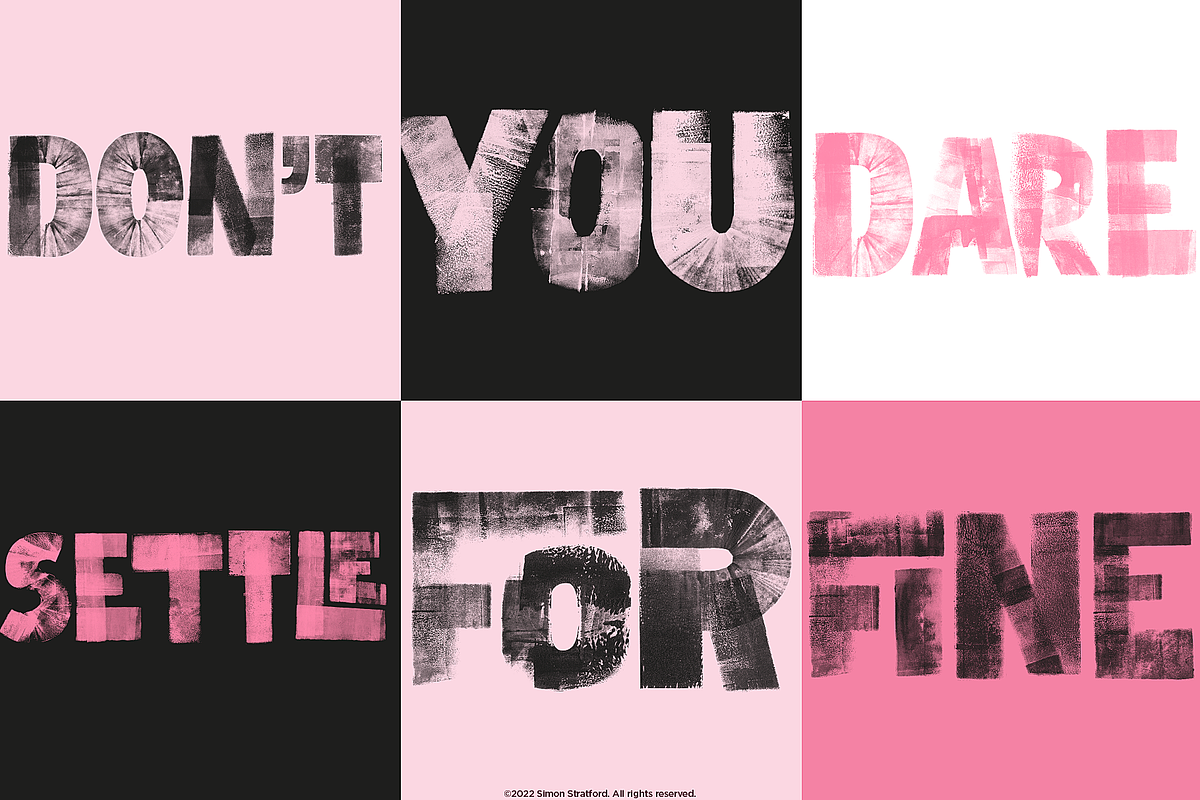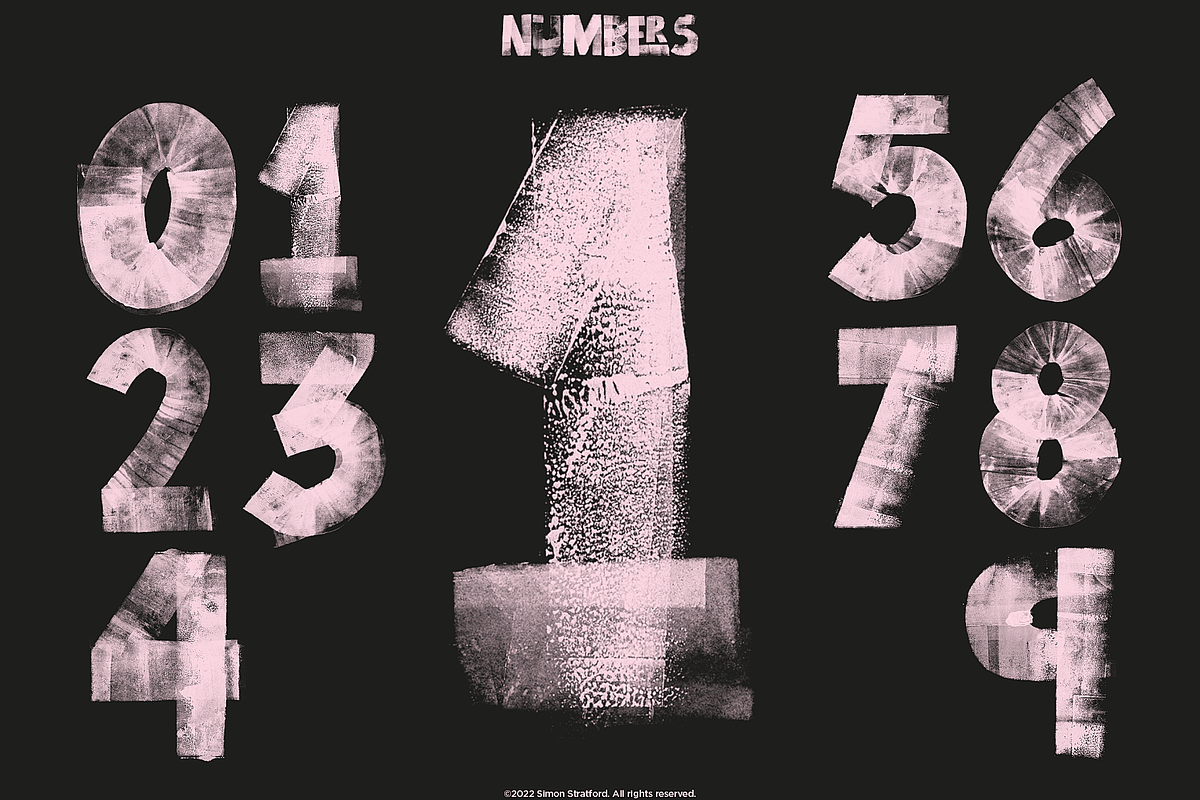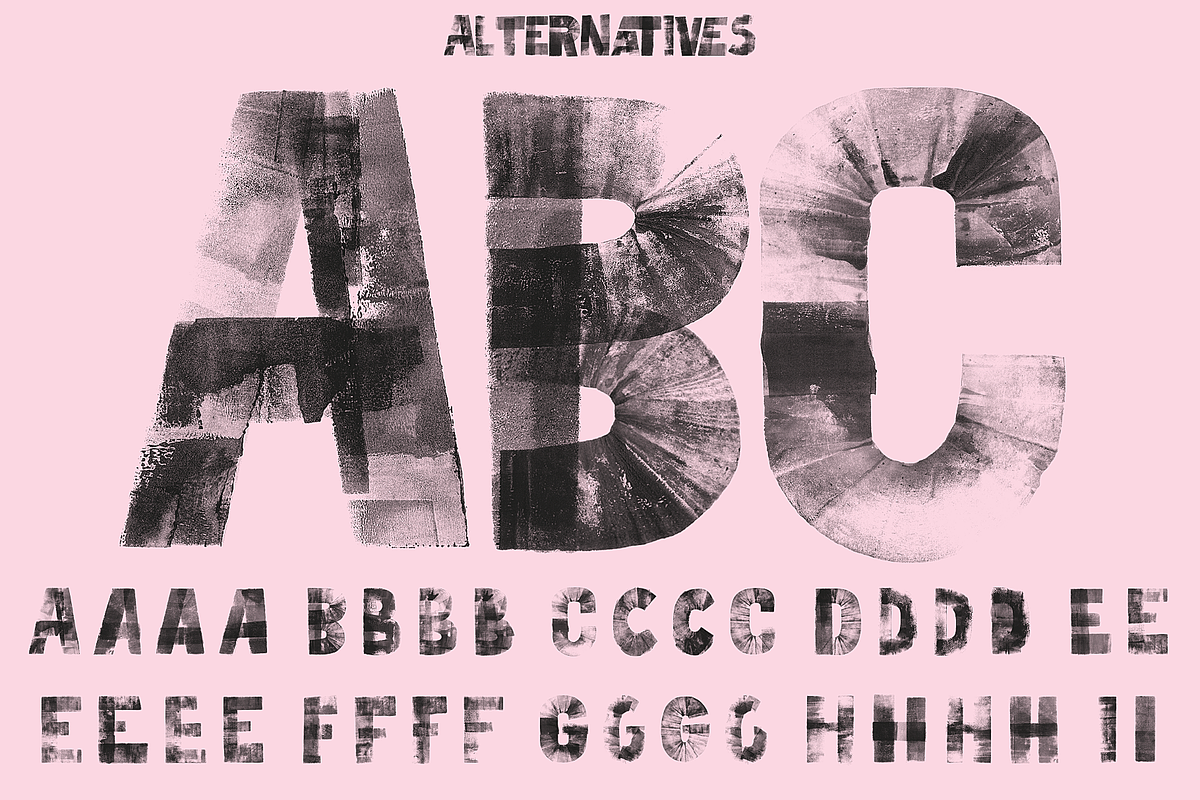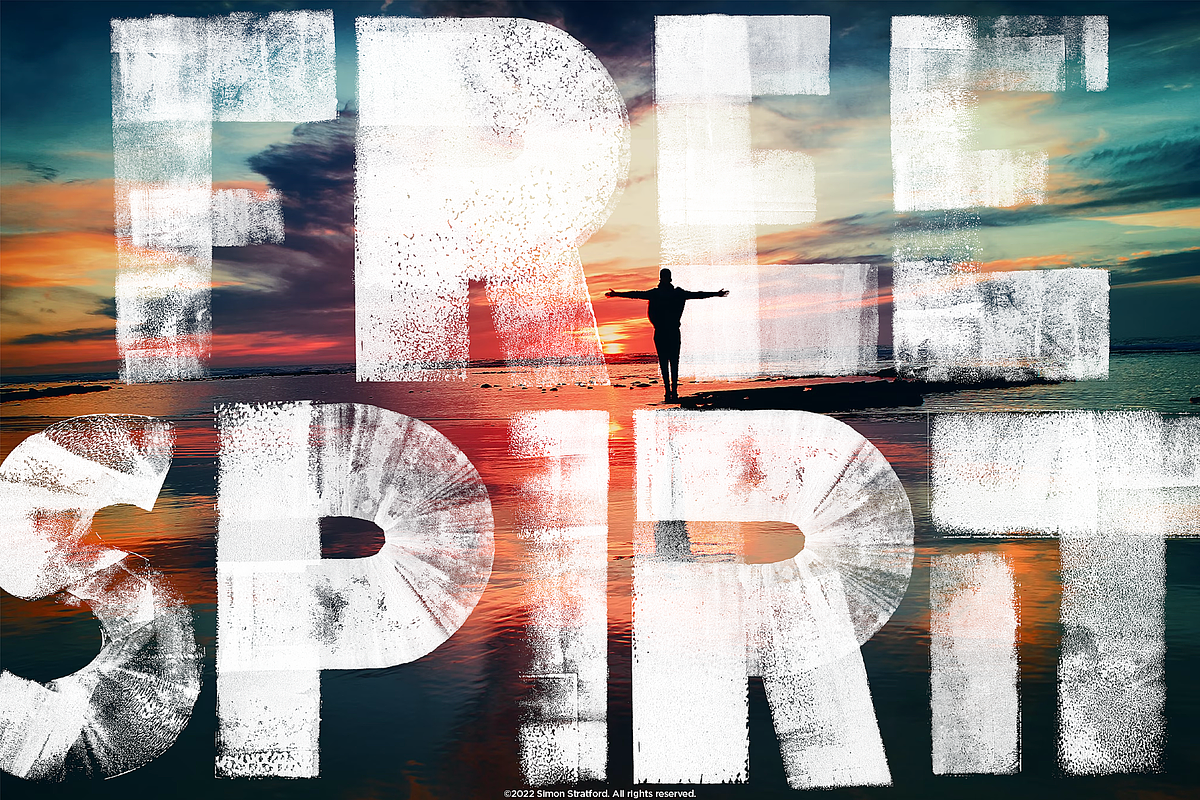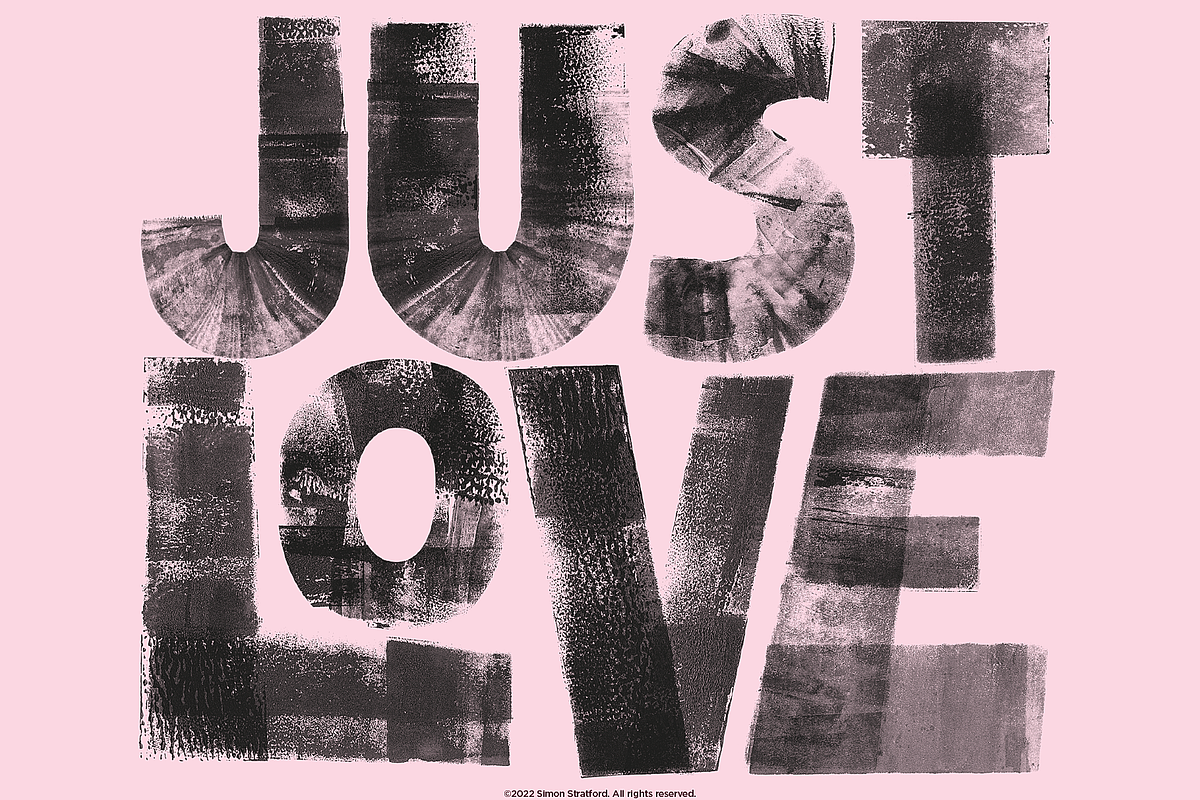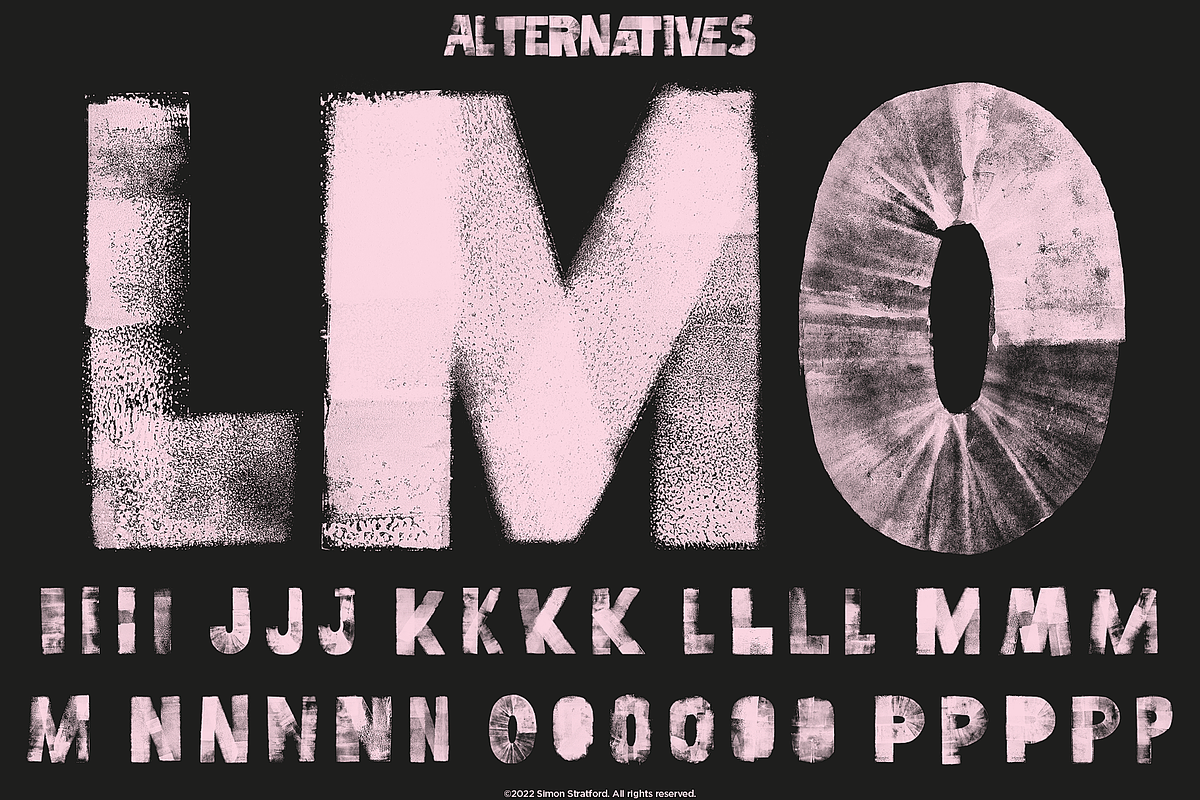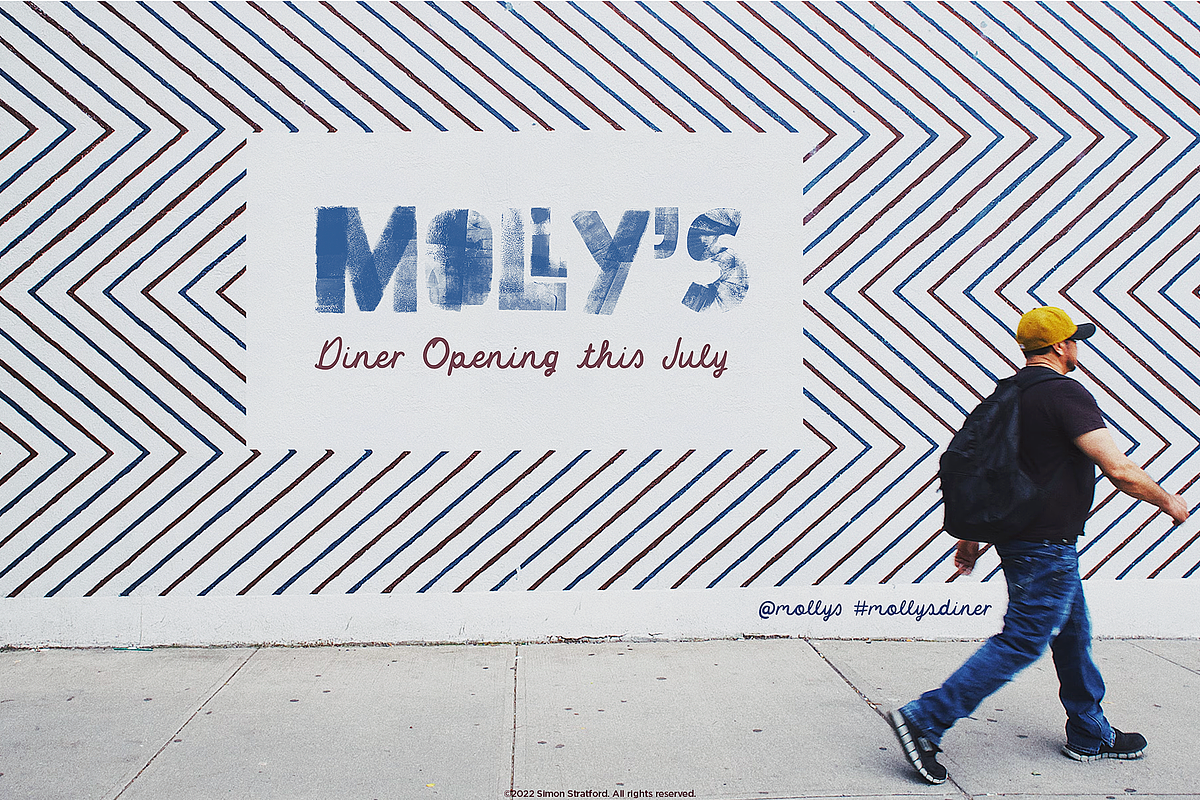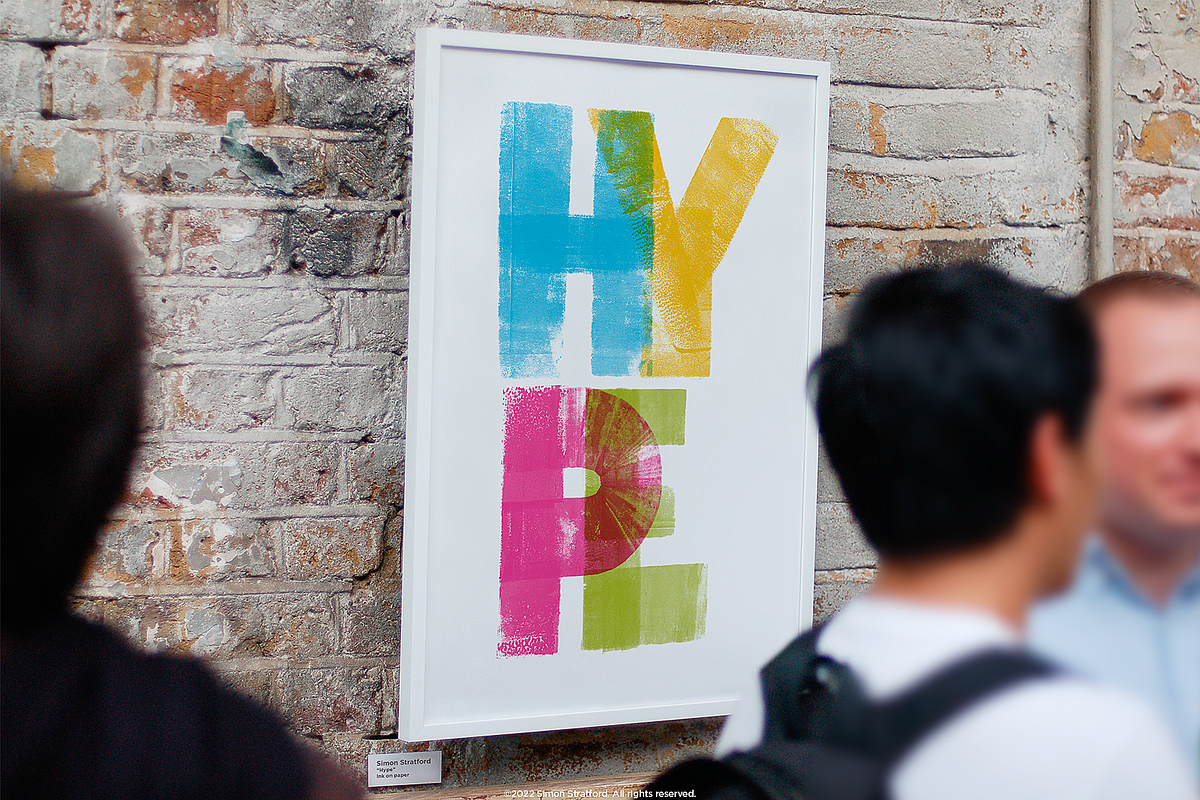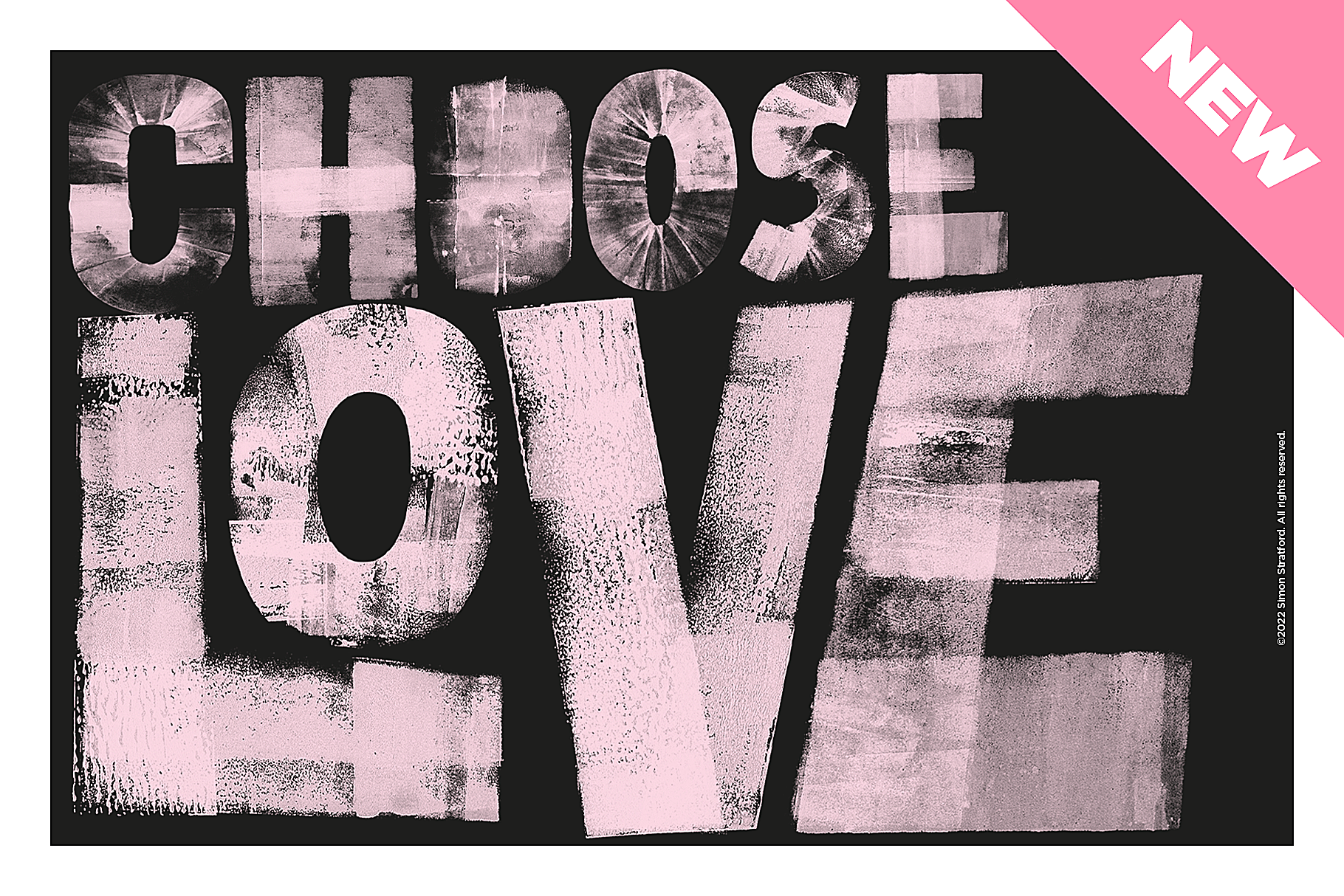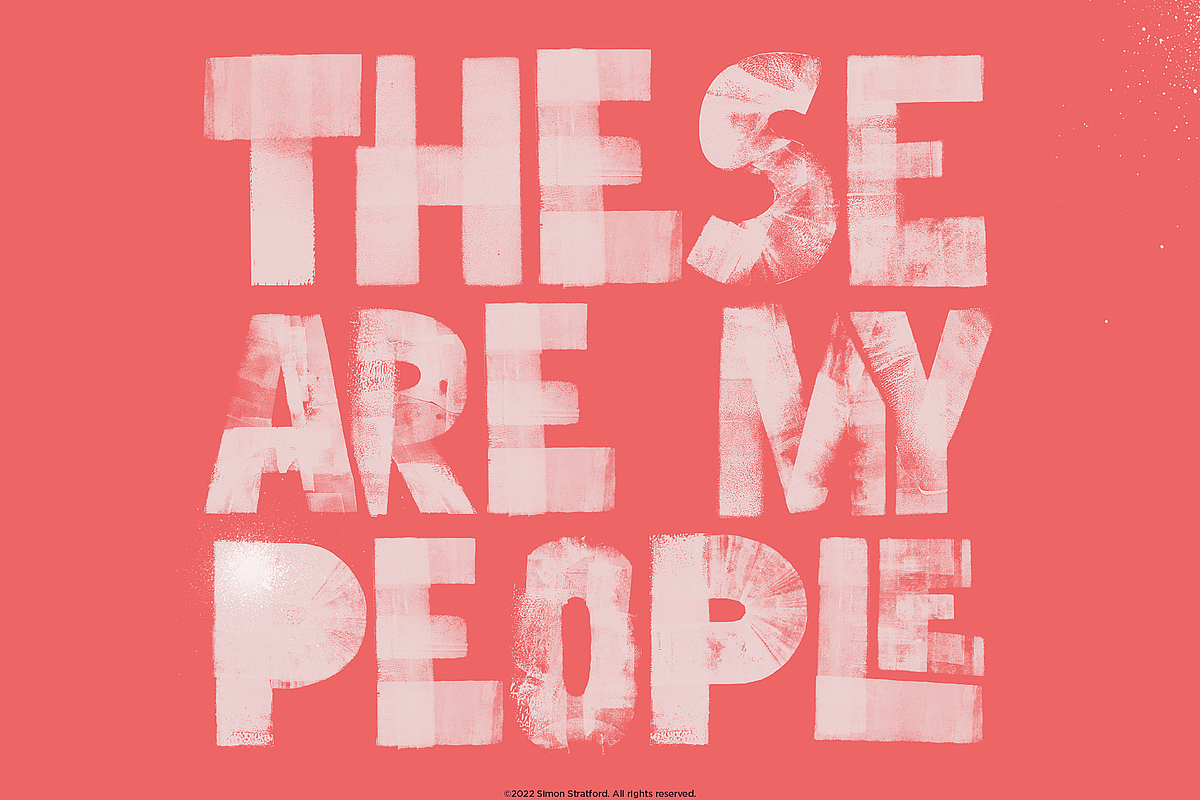
Display font Choose Love sans serif
Choose Love typeface by Simon Stratford. A hand-printed letterpress inspired, dirty ink display font packed full of awesome print details.
The font was created with cardboard cutouts and an ink brayer and then printed on paper, so it’s all handmade.
The details from the lettering print marks are quite staggering. You'll be hard pushed to find a better hand-printed typeface like it.
It's bold. It's far from perfect. It's full of imperfections and dirty marks—just the way I like it.
Choose Love font has three versions
If this font were a band, it would be more The Ramones than R.E.M.
Choose Love font—Alternative Glyphs
Choose Love has multiple alternative letters and ligatures—producing unique type designs. Combine them, and you can make wonderful type lockups that look like you have printed them yourself.
Each A to Z letterform has at least three alternatives —The impact of those extra glyphs? First, you can switch out repeating letters to make your design look more random, less repetitious and less like a font—marvellous.
Choose Love font—Ligatures
Choose Love also has ligatures. The ligatures are in their own typeface. You can turn them on via the glyphs panel in Adobe apps or select them via the glyphs panel. The ligatures feature many popular two-letter combinations that make your designs look even more impressive.
Uppercase glyphs only (This font is unicase)
Choose Love uses the new OpenType-SVG Bitmap font format. A traditional vector font has one colour and no transparency. Choose Love has complete transparency and thousands of shades of black and grey. In addition, the OpenType-SVG Bitmaps technology gives the font more detail than the old font format.